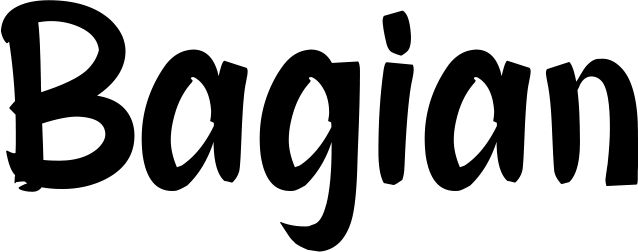
B Bagian Font
B Bagian font can provide a fancy, playful, and animated design. In some lines, you can see irregularities and extra lines used to design many packaging of toy notebooks.
There is no doubt about the completeness of the characters in this font. It can be used to design the cover of animation magazines, headers of animation critique websites, and introduction of video games. On the other hand, you can use it to create T-shirts and many girly themes.